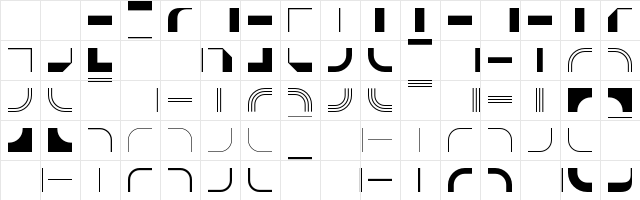
BorderPi Regular
Design Context for BorderPi Typeface
BorderPi takes a measured approach to typography — its balanced proportions and neutral character make it a reliable workhorse for both digital and print work.